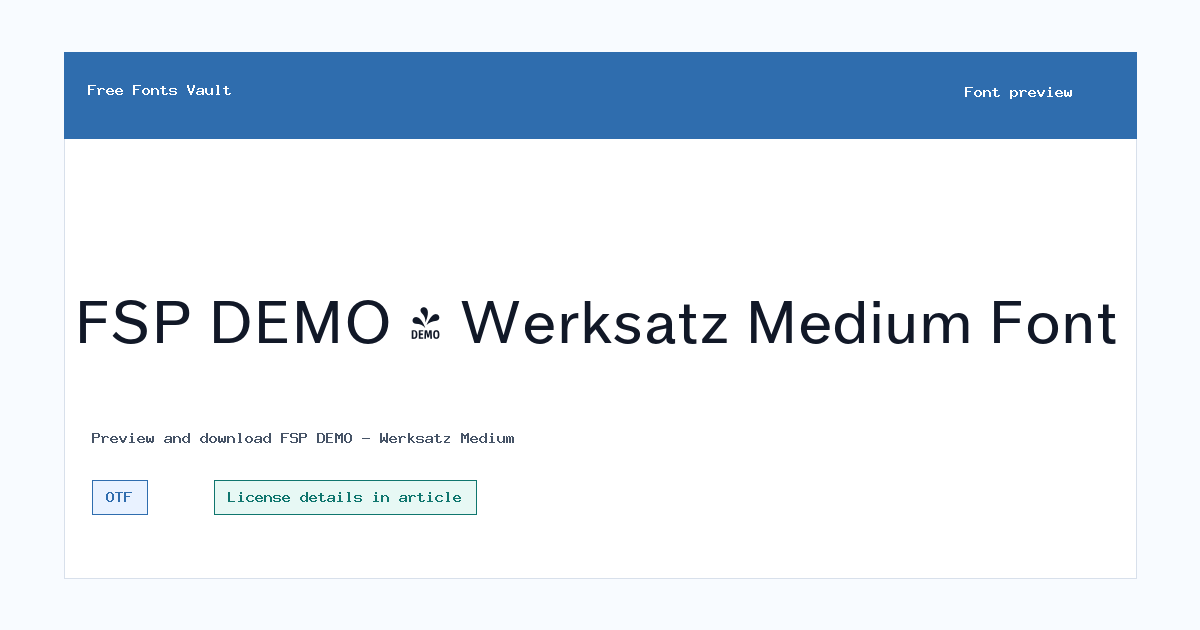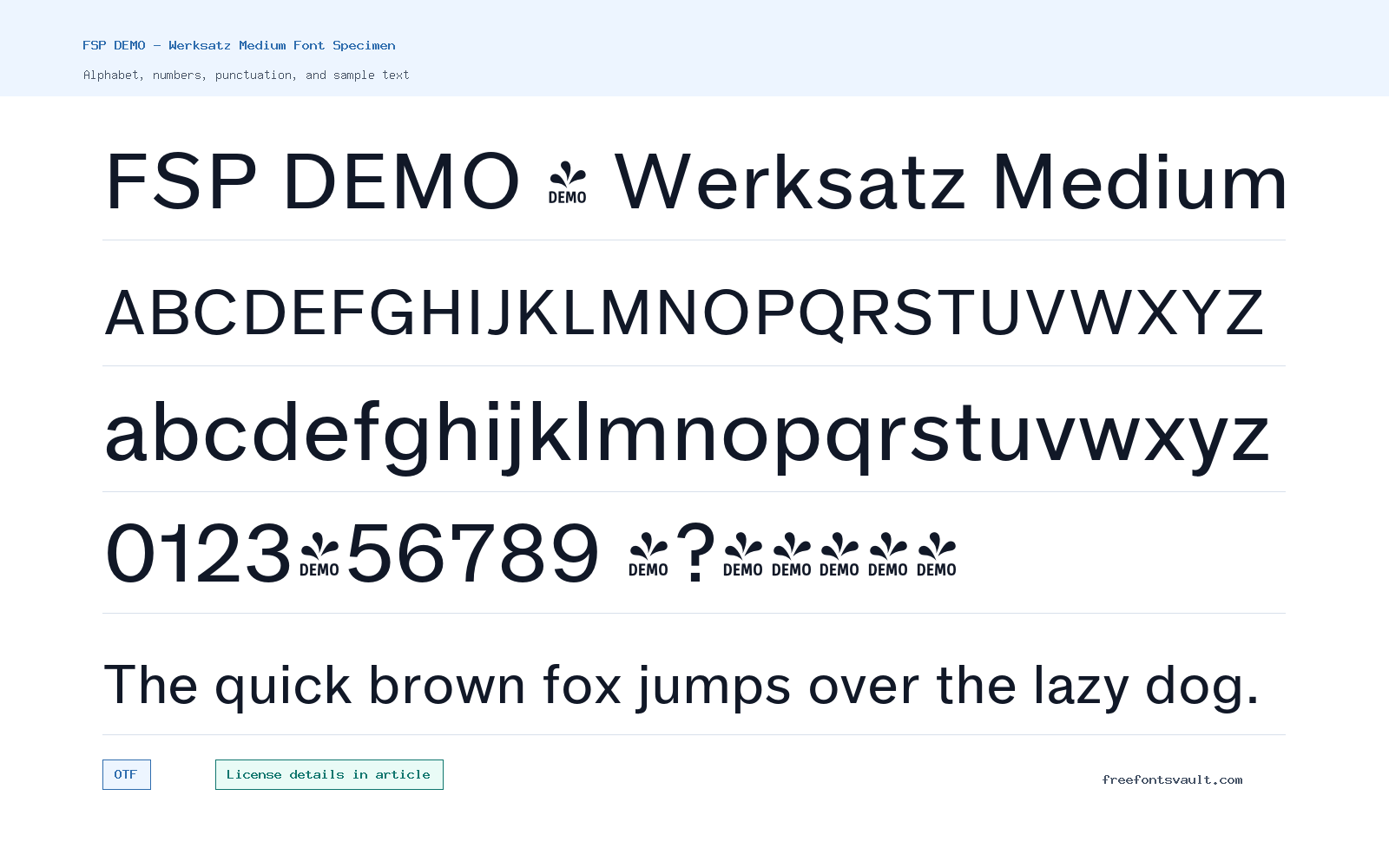
FSP DEMO - Werksatz Medium
- Designer Moritz Kleinsorge
- Foundry Identity Letters
FSP DEMO – Werksatz Medium font.
FSP DEMO – Werksatz Medium is a medium-weight demo cut of Werksatz, a clean sans serif family from Identity Letters. It has the steady, compact feel of a grotesque typeface, making it useful for testing headlines, labels, interface text, and short editorial settings before buying the full licensed family.
About FSP DEMO – Werksatz Medium
Werksatz is a sans serif family by Moritz Kleinsorge for Identity Letters. The commercial family is sold through type retailers and includes a wide range of weights, italics, Latin language support, and OpenType features. This download is the FSP DEMO – Werksatz Medium OTF file, so it should be treated as a trial version rather than a full release for finished commercial projects.
The Medium weight sits in a practical middle range: stronger than a regular text weight, but not as loud as bold. Use the preview box to test brand names, navigation labels, poster lines, button text, and short paragraphs. Its grotesque-style structure can feel precise and businesslike, but the medium weight also works well for readable titles where you want clarity without heavy emphasis.
- Medium-weight sans serif style with a compact grotesque feel
- Part of the larger Werksatz family sold commercially by Identity Letters / retail partners
- Useful for previewing headings, UI labels, posters, and short editorial text
- Testing clean headline and title layouts
- Mocking up brand names, labels, menus, and interface text
- Poster, editorial, and signage-style experiments
- Comparing medium-weight grotesque sans options
Werksatz is credited to designer Moritz Kleinsorge and the foundry Identity Letters.
For the best preview, test both uppercase and lowercase words, numbers, punctuation, and the exact phrase you plan to use. Medium-weight grotesque sans fonts often work well in short text, but always check spacing at small sizes before using them for body copy or dense interface layouts.
Who designed Werksatz?
Werksatz is credited to Moritz Kleinsorge, with Identity Letters listed as the foundry.
What kind of font is Werksatz Medium?
It is a medium-weight sans serif with a grotesque-style feel. It is well suited for testing clean titles, labels, posters, navigation text, and short editorial layouts.